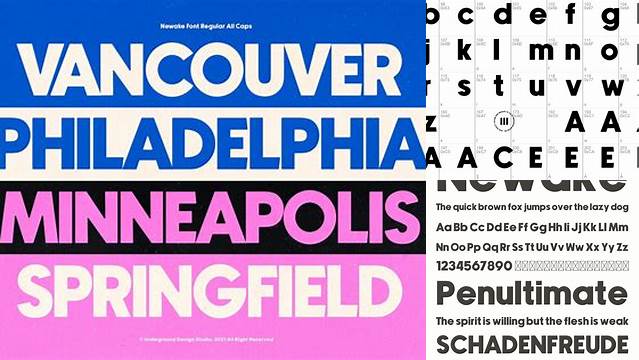
What is Newake Regular Font?
Let's kick things off by understanding what exactly the Newake Regular font is. Newake Regular is a contemporary sans-serif typeface known for its clean lines, balanced proportions, and overall versatility. It's a font that manages to be both modern and timeless, making it a popular choice for a wide range of design projects. Its neutral yet appealing design makes it suitable for various applications, from branding and advertising to editorial design and digital interfaces. One of the reasons designers love Newake Regular is its readability. The font is designed to be easily legible, even at smaller sizes, which is crucial for body text in books, articles, and websites. Its clear and open letterforms ensure that readers can comfortably engage with the content, reducing eye strain and improving the overall reading experience. Moreover, Newake Regular boasts a comprehensive character set, including uppercase and lowercase letters, numerals, punctuation marks, and a variety of symbols. This extensive character set allows designers to express themselves fully and create designs that are both functional and visually appealing. The font also supports multiple languages, making it a global-friendly option for projects targeting diverse audiences. In terms of aesthetics, Newake Regular strikes a perfect balance between simplicity and sophistication. It doesn't have excessive ornamentation or distracting details, allowing the content to take center stage. At the same time, it possesses a subtle elegance that elevates the overall design and adds a touch of class. This versatility makes it a go-to font for designers who want to create a clean, professional, and engaging visual experience.
Key Features of Newake Regular
When you're picking out a font, knowing its features is super important. Newake Regular has a bunch of cool things going for it: its clean and modern design makes it great for lots of projects, from websites to print stuff. The readability is on point, so your audience won't have any trouble reading it, whether it's a headline or a block of text. Plus, it comes with all sorts of characters and supports different languages, which is awesome if you're working on global projects. And let's not forget how versatile it is! You can use it for anything, really. The balanced proportions and neutral appearance ensure it integrates seamlessly into any design, enhancing its overall appeal without overpowering the message. This adaptability is one of the key reasons Newake Regular remains a favorite among designers across various disciplines. Another notable feature is its scalability. The font maintains its clarity and legibility even when scaled to different sizes, making it suitable for both large format displays and small screen devices. This is particularly important in today's multi-device world, where designs need to look good on everything from desktop computers to smartphones. Additionally, Newake Regular is often available in multiple weights, ranging from light to bold. These different weights allow designers to create visual hierarchy and add emphasis to specific elements within their designs. The ability to vary the font weight provides greater flexibility and control over the overall look and feel of the typography. In summary, the key features of Newake Regular include its clean and modern design, excellent readability, comprehensive character set, multilingual support, versatility, balanced proportions, scalability, and availability in multiple weights. These features combine to make it a highly desirable font for designers seeking a reliable and aesthetically pleasing typeface.
Where to Use Newake Regular
Okay, so where can you actually use Newake Regular? Think about branding β this font is perfect for logos and making your brand look consistent across everything. If you're into web design, it's great for websites because it's easy to read on screens. And for print? Magazines, brochures, you name it! Itβs also fantastic for creating clear and professional presentations. Its clean and modern appearance ensures that your message is conveyed effectively and with visual appeal. In the realm of advertising, Newake Regular can be used to create eye-catching headlines and compelling body text that captures the attention of the target audience. Its versatility allows it to adapt to various advertising mediums, from print ads to digital banners. Moreover, in the world of editorial design, Newake Regular shines as a reliable choice for typesetting books, newspapers, and journals. Its excellent readability ensures that readers can easily navigate through long passages of text without experiencing fatigue. Its neutral yet elegant style also complements the content without overpowering it. For mobile app development, Newake Regular is an excellent option for designing user interfaces. Its clear and legible characters make it easy for users to interact with the app, while its modern design adds a touch of sophistication. Its scalability ensures that the text looks crisp and sharp on different screen sizes. In the educational sector, Newake Regular can be used for creating textbooks, educational materials, and online courses. Its readability and clarity make it ideal for presenting information in an accessible and engaging manner. Its neutral style also helps to focus attention on the content rather than distracting from it. Overall, Newake Regular is a versatile font that can be used in a wide range of applications, including branding, web design, print materials, advertising, editorial design, mobile app development, and educational materials. Its clean design, excellent readability, and adaptability make it a valuable asset for any designer.
Alternatives to Newake Regular
If you can't find Newake Regular or want to try something similar, there are tons of other fonts out there. Fonts like Open Sans, Roboto, and Lato are all great alternatives with a similar vibe. These fonts are also usually free and easy to find. Exploring these alternatives can help you find the perfect font for your project. If you're looking for alternatives to Newake Regular, there are several excellent options that offer a similar aesthetic and functionality. One popular alternative is Open Sans, which is a humanist sans-serif typeface designed by Steve Matteson. Open Sans is known for its clean and legible design, making it a great choice for body text and headlines. It's also available for free on Google Fonts, making it easily accessible for a wide range of projects. Another excellent alternative is Roboto, which is a sans-serif typeface developed by Google as the system font for Android. Roboto has a modern and geometric design that is both versatile and visually appealing. It's also available in a variety of weights and styles, allowing you to create visual hierarchy and add emphasis to specific elements within your designs. Lato is another popular sans-serif typeface that offers a similar aesthetic to Newake Regular. Lato is a humanist sans-serif font that is known for its warm and friendly appearance. It's also highly legible, making it a great choice for both body text and headlines. Like Open Sans and Roboto, Lato is available for free on Google Fonts. In addition to these free alternatives, there are also several premium fonts that offer a similar look and feel to Newake Regular. One such font is Proxima Nova, which is a geometric sans-serif typeface designed by Mark Simonson. Proxima Nova is known for its clean lines and balanced proportions, making it a versatile choice for a wide range of design projects. Another premium option is Avenir, which is a geometric sans-serif typeface designed by Adrian Frutiger. Avenir is known for its elegant and sophisticated design, making it a great choice for branding and advertising. When exploring alternatives to Newake Regular, it's important to consider the specific needs of your project. Think about the overall tone and style that you're trying to achieve, and choose a font that aligns with your vision. Also, be sure to check the licensing terms of each font to ensure that you can use it for your intended purpose. Overall, there are many excellent alternatives to Newake Regular that offer a similar aesthetic and functionality. By exploring these options, you can find the perfect font for your project and create a visually appealing and effective design.